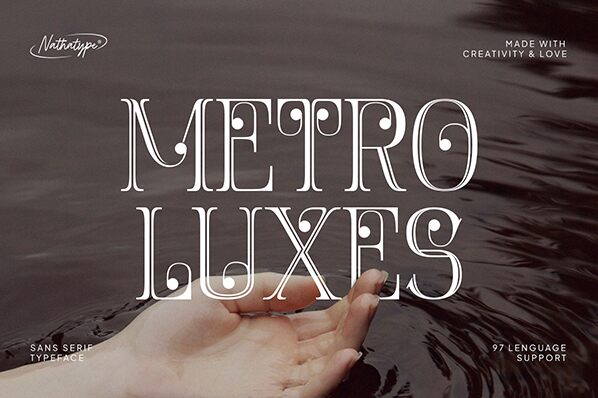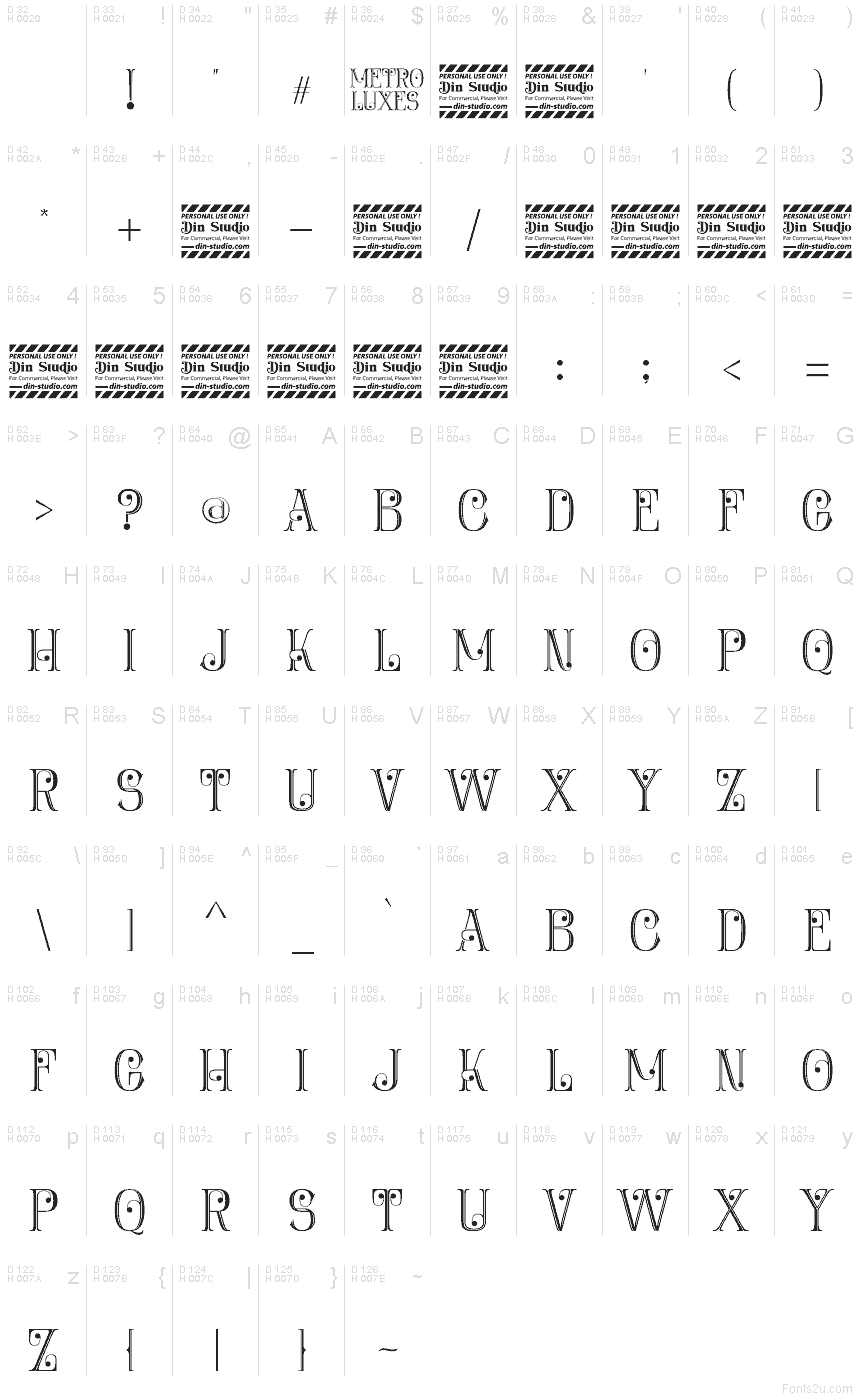
Metro Luxes Personal Use
Metro Luxes font by Din Studio is a free retro display font. Its airy outline letters sparkle with bead-like inlines, evoking marquee lights and cocktail-hour signage. Rounded strokes and smooth arcs create a lively rhythm that feels glam without getting fussy, and the open interiors keep the forms crisp when shown big.
Using Metro Luxes gives headlines a polished, vintage-luxe kick—great for boutique logos, beauty packaging, event invitations, posters, album art, and cafe menus. The dots read best when you set it large, so let it take the spotlight. For copy beneath, pair this free font with a plain geometric sans to keep the glow grounded and the message clear.